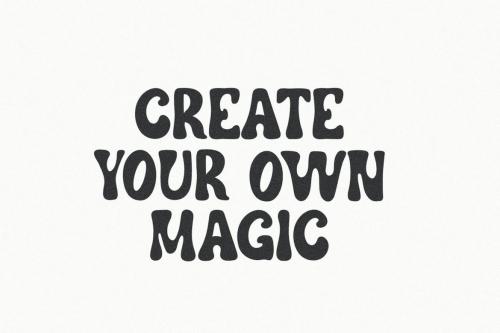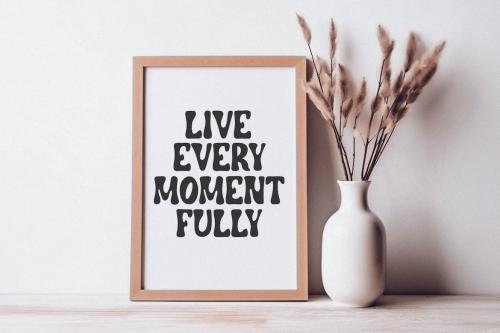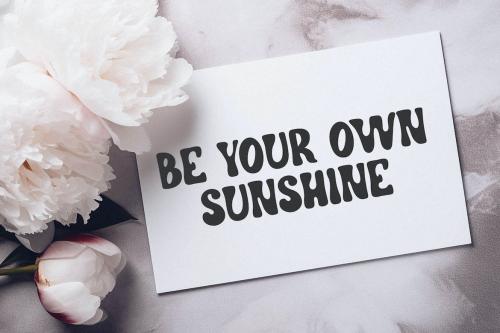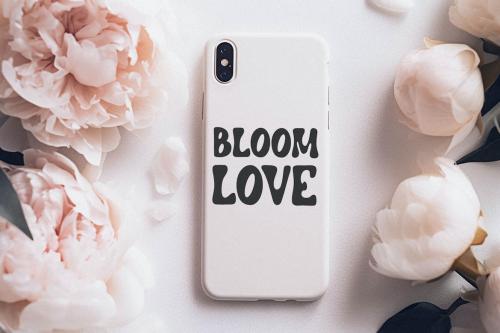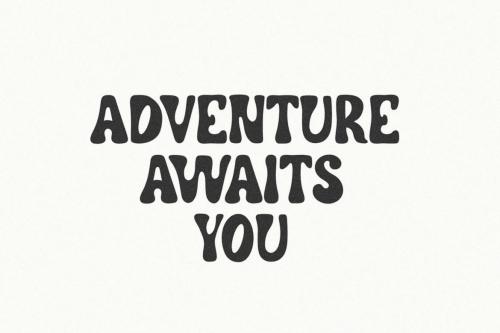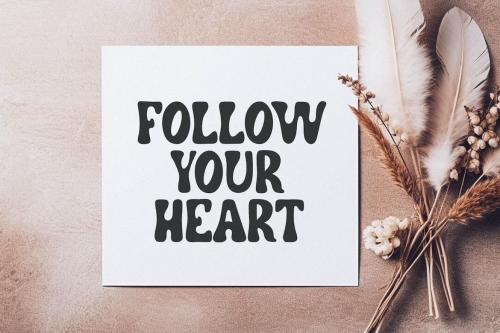
More Fun Groovy Retro Font
**More Fun - a lovely groovy handwritten font. Perfect to create stickers, quotes, prints, cricut projects, sublimation designs and svg files.**